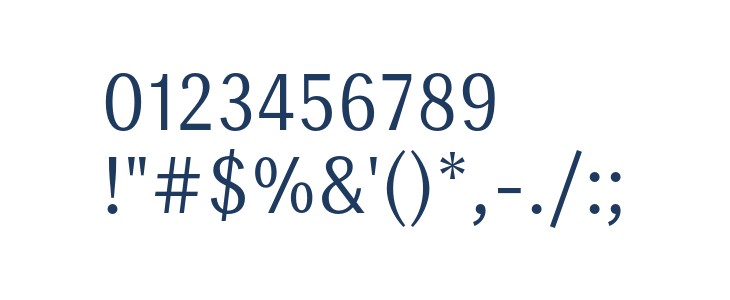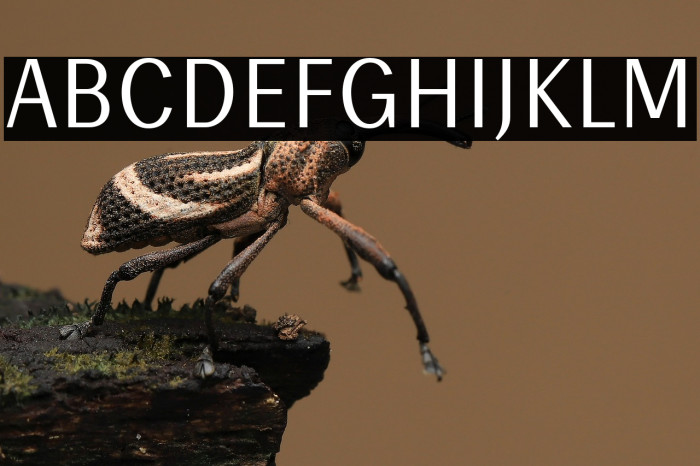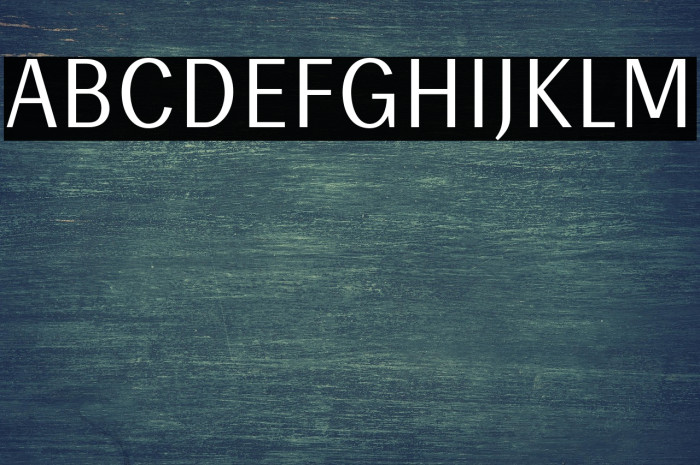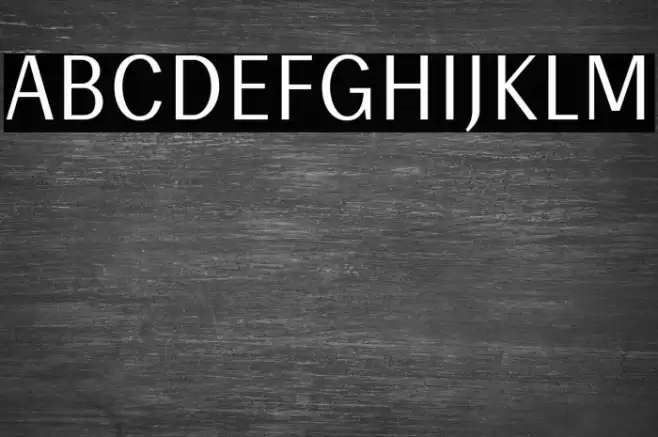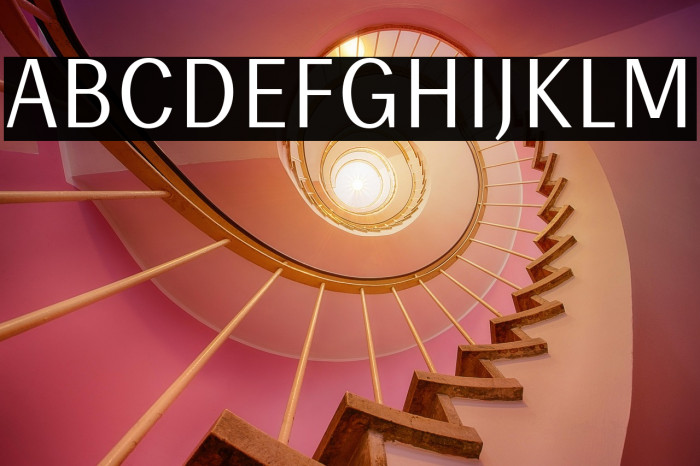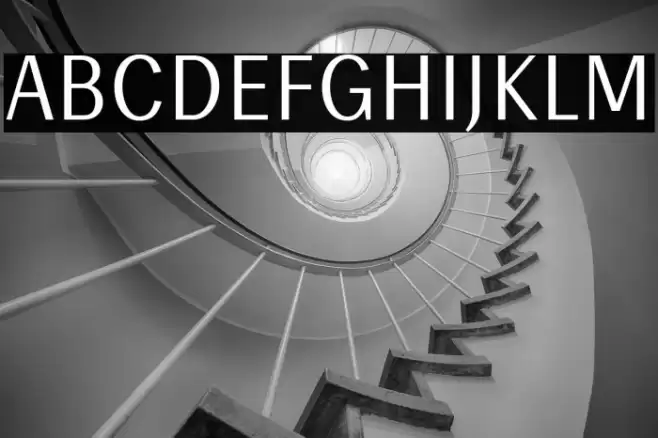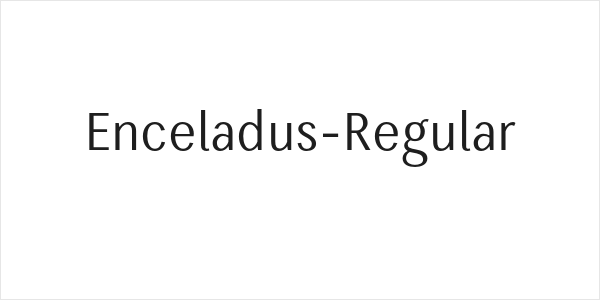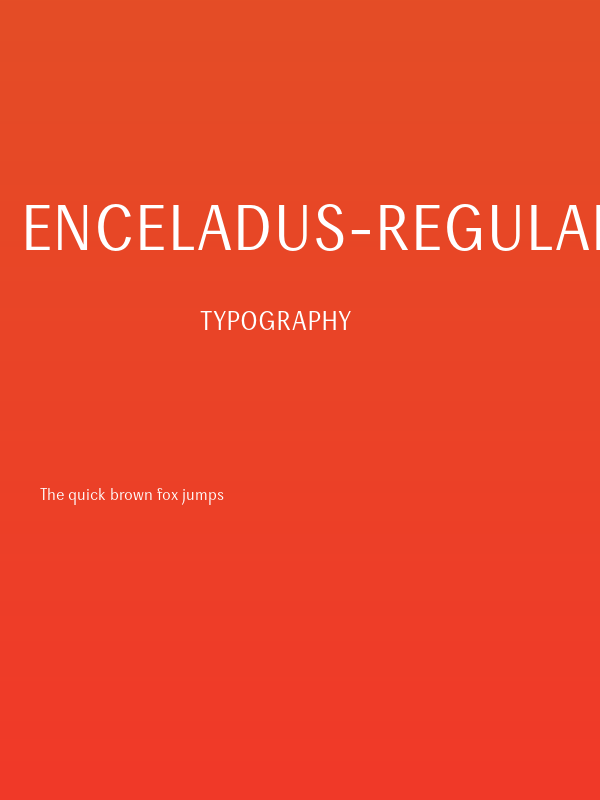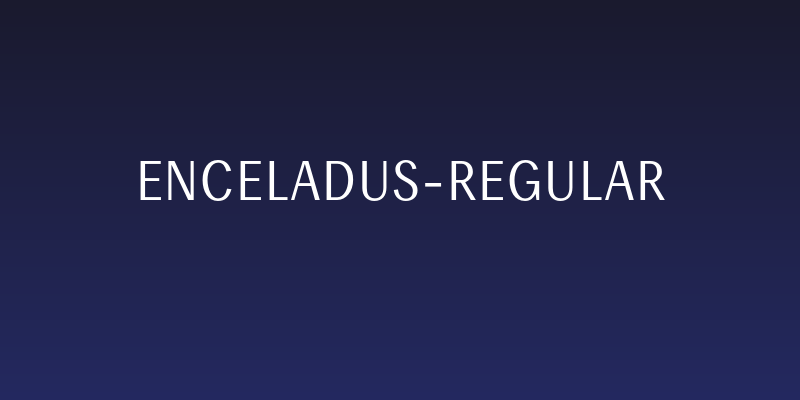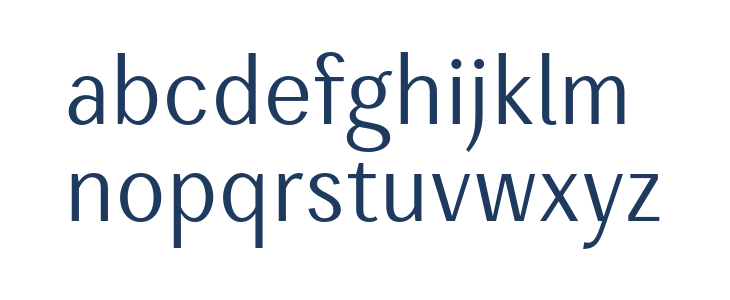
Enceladus-Regular Font
Enceladus-Regular Description
This typeface features a clean and modern sans-serif design, characterized by its simplicity and readability. The letters are well-proportioned with a consistent stroke width, offering a balanced and harmonious appearance. The uppercase letters are bold and assertive, while the lowercase letters maintain a friendly and approachable feel. The numerals are clear and distinct, ensuring easy readability. The special characters are designed to complement the overall style, making this typeface versatile for various applications.
Use CaseHeadlines, Body text, Logos
Proposed ProjectsIdeal for branding, web design, advertising, and editorial projects where clarity and modernity are desired.